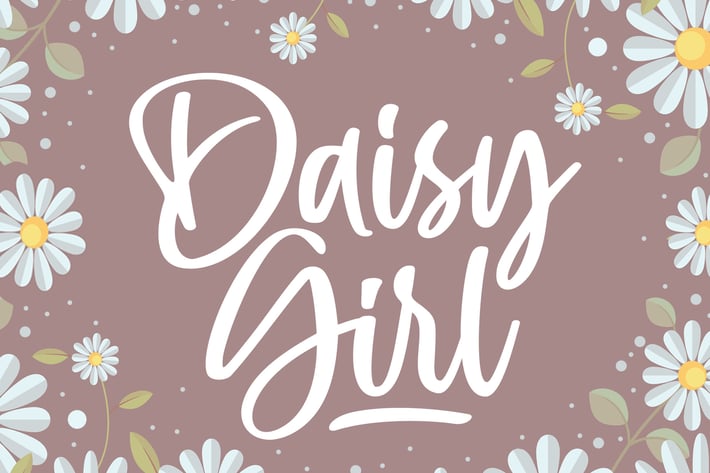
Daisy Girl - Cute Script Font
Daisy Girl is a flowing handwritten font, described by an elegant touch, perfect for your favorite projects.
Fall in love with its incredibly distinct and timeless style and use it to create spectacular designs!